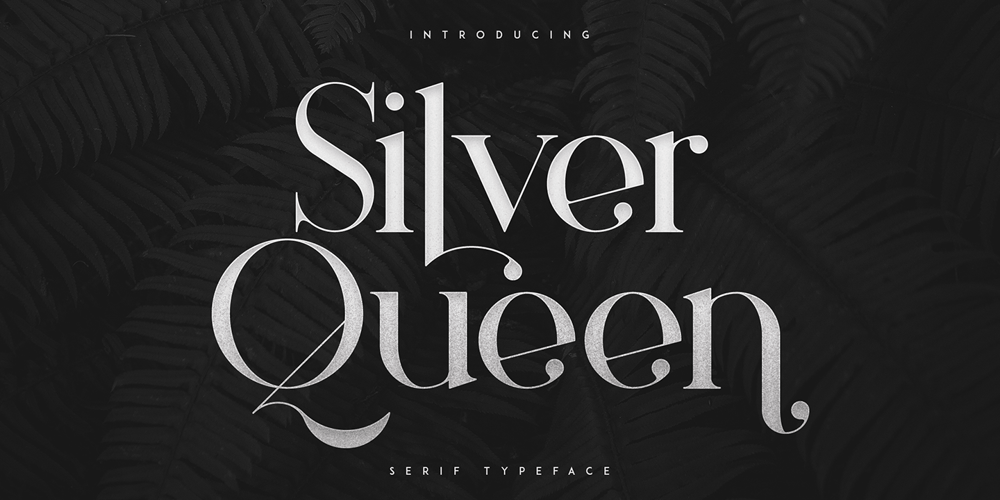
Silver Queen Font Family was designed by Vladimir Fedotov, Plamen Petrov and published by VP Creative Shop. Silver Queen contains 5 styles and family package options. Introducing Silver Queen – Serif TypefaceSilver Queen is luxury, vintage typeface with 6 weights loaded alternate glyphs, ligatures and multilingual support. It’s a very versatile font that works great in large and small sizes.Silver Queen is perfect for branding projects, home-ware designs, product packaging, magazine headers – or simply as a stylish text overlay to any background image. Uppercase, lowercase, numeral, punctuation & Symbol 6 weights Hairline Light Regular Bold Extra Bold Black Alternate glyphs Ligatures Multilingual support How to access alternate glyphs?To access alternate glyphs in Adobe InDesign or Illustrator, choose Window Type & Tables GlyphsIn Photoshop, choose Window Glyphs. In the panel that opens, click the Show menu and choose Alternates for Selection. Double-click an alternate’s thumbnail to swap them out.Feel free to contact me if you have any questions!Mock ups and backgrounds used are not included.Thank you! Enjoy!